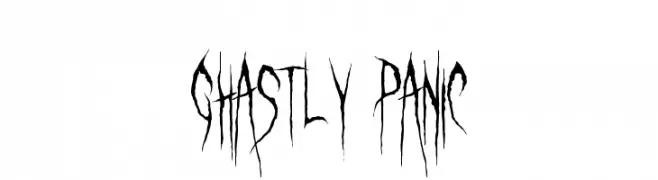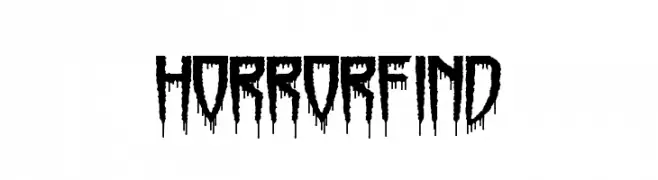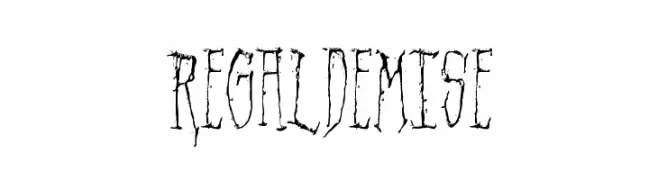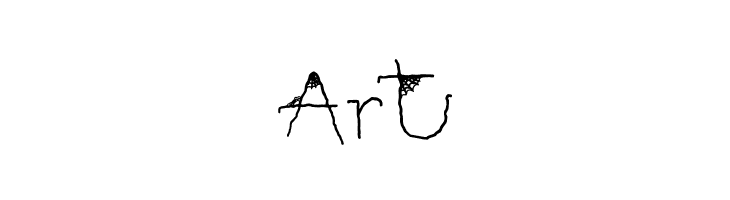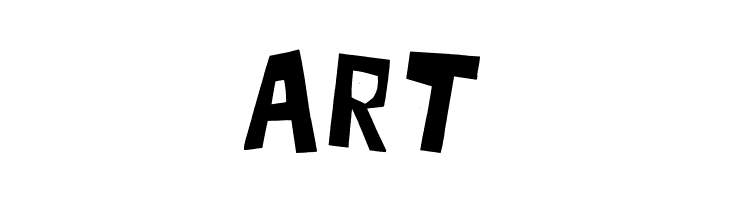
( Fonts by www.empire-of-the-claw.com )
A collection of horror-themed dingbats with eerie and spooky designs.
( Fonts by Spork Thug Typography - Josh Wilhelm - www.lifewithouttaffy.com/taffy/blog )
A bold, playful font with a cut-out, handcrafted appearance.
( Fonts by The Font Emporium )
A bold, vintage-style font with a distressed, eerie aesthetic.
( Fonts by Sinister Visions - Chad Savage - www.sinisterfonts.com )
A spooky, dripping font perfect for horror themes.
( Fonts by Sinister Visions - Chad Savage - www.sinisterfonts.com )
A gothic, elongated font with sharp serifs and a dramatic presence.
( Fonts by Cumberland Fontworks - http://www222.pair.com/sjohn/fonts.htm - S. John Ross )
A distressed, jagged font with an eerie, hand-drawn style.
( Fonts by Sinister Visions - Chad Savage - www.sinisterfonts.com )
A jagged, eerie font with elongated, scratch-like letterforms.